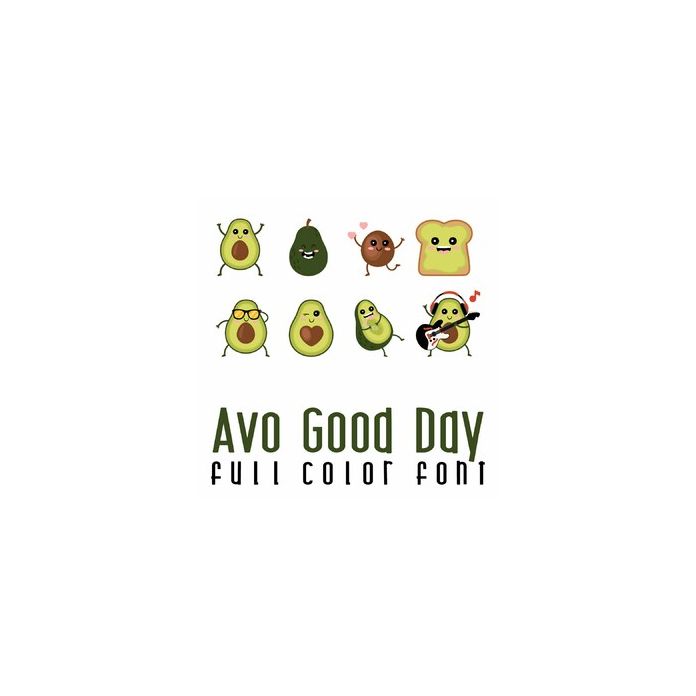
This adorable full color doodlebat font features 26 avocado images. Perfect for cards, puns, crafts, gifts, decor, scrap book pages, planner stickers and more!